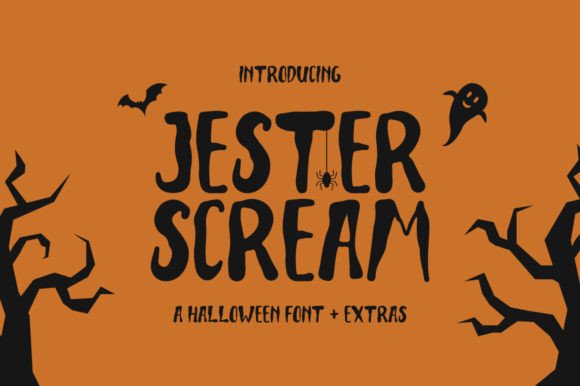
Journey into the realm of festivities and haunting elegance with Jester Scream Font, a display font family that brings an electrifying touch of spooktacular Halloween charm to your creative endeavors. Conjured by the imaginative minds at Beautypes, this font is not just a collection of letters; it's a gateway to a world of spine-chilling aesthetics and captivating designs.
Picture yourself crafting eerie Halloween invitations that send shivers down your guests' spines, or designing T-shirts and mugs adorned with Jester Scream's menacingly playful characters. Its gory style adds an alluring edge to retro-inspired designs, making them stand out from the mundane.
Let your imagination run wild as you create posters and logos that ooze an aura of intrigue and horror. With Jester Scream Font, your Halloween creations will be the talk of the town, leaving an unforgettable impression on all who behold them.
But Jester Scream Font's versatility isn't limited to the realm of Halloween. Unleash its playful potential in creating playful quotes and greeting cards that bring a touch of spooky fun to everyday life. Its unique charm adds a touch of whimsy to packaging designs, making your products stand out on the shelves.
Jester Scream Font is more than just a font; it's an invitation to embrace the darker side of creativity and craft designs that are as captivating as they are chilling. Its spooky elegance will add a touch of magic to your creations, leaving your audience spellbound and eager for more. Embrace the spirit of Halloween and beyond with Jester Scream Font, and let your imagination run wild.